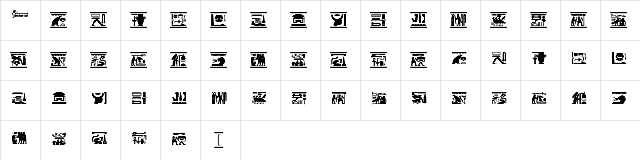
FontsVectorHIEROGLYPS Regular
Design Context for FontsVectorHIEROGLYPS Typeface
FontsVectorHIEROGLYPS is a composed and adaptable typeface that performs quietly and consistently across a wide range of design contexts.